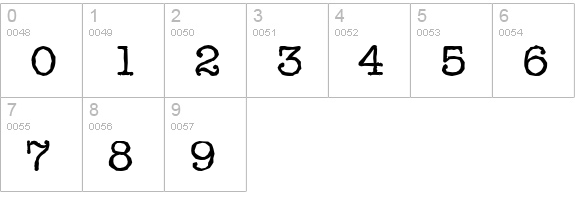
TypewriterAntique-Regular Font Details
TypewriterAntique-Regular is the standard, neutral variant in the TypewriterAntique typeface family \xE2\x80\x94 well suited to general body text, paragraphs, and standard typographic work.
TypewriterAntique-Regular font is a timeless and classic typeface that evokes a sense of nostalgia for the bygone era of typewriters. Its vintage charm and distinctive character make it a perfect choice for projects that require a touch of old-world elegance. The clean lines and unique design of TypewriterAntique-Regular font give your text a sophisticated and refined look, making it ideal for a wide range of creative endeavors. Best of all, TypewriterAntique-Regular font is freely available to download at FontsMarket.com. Whether you're working on a vintage-inspired design project or simply want to add a touch of retro flair to your work, TypewriterAntique-Regular font is the perfect choice. Download it today and add a touch of timeless style to your creations.